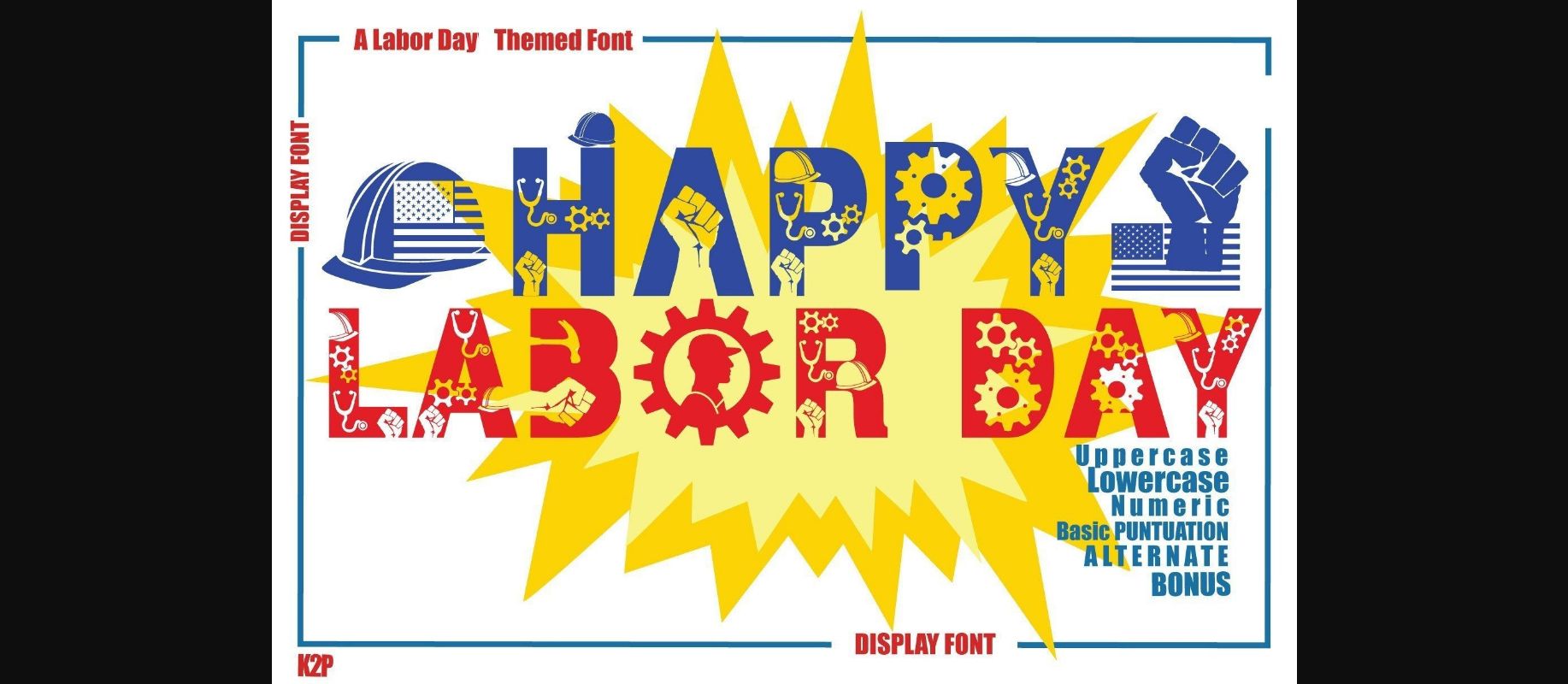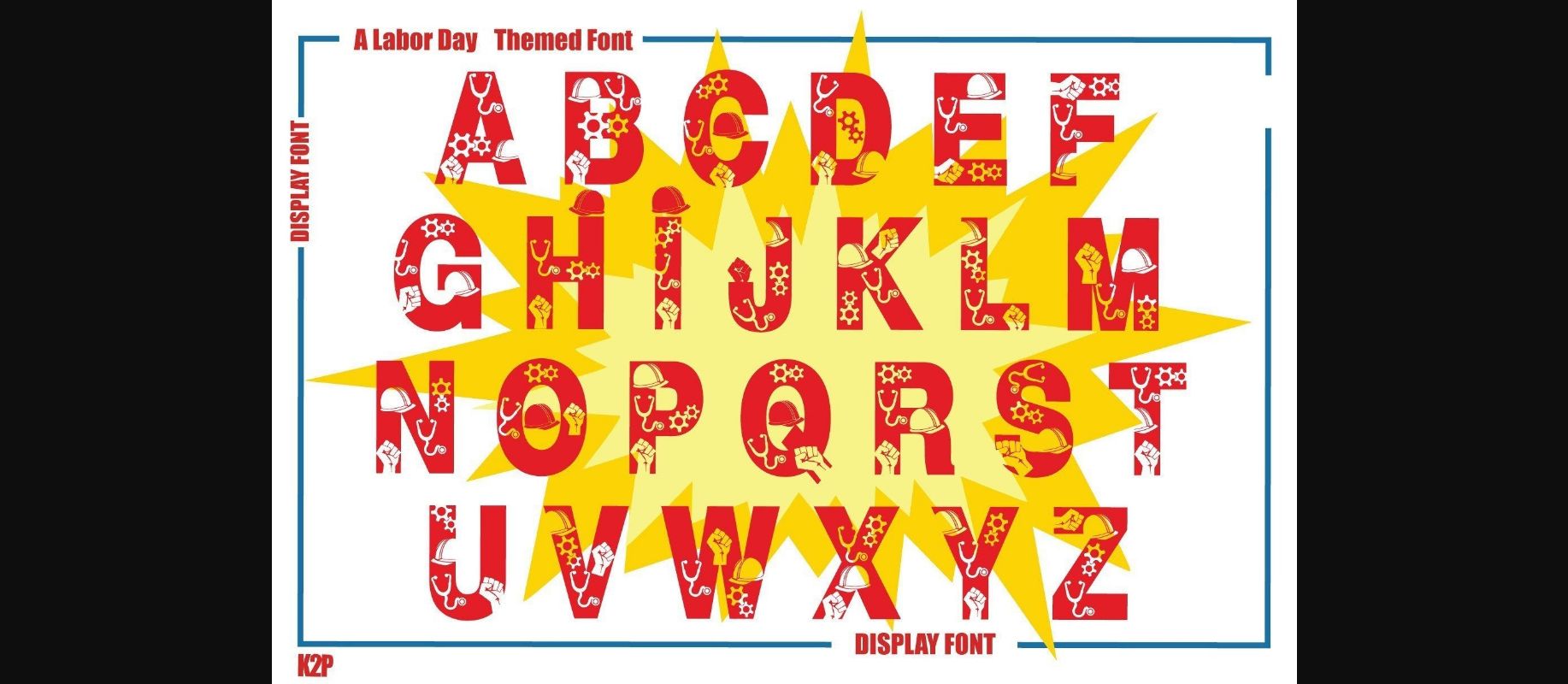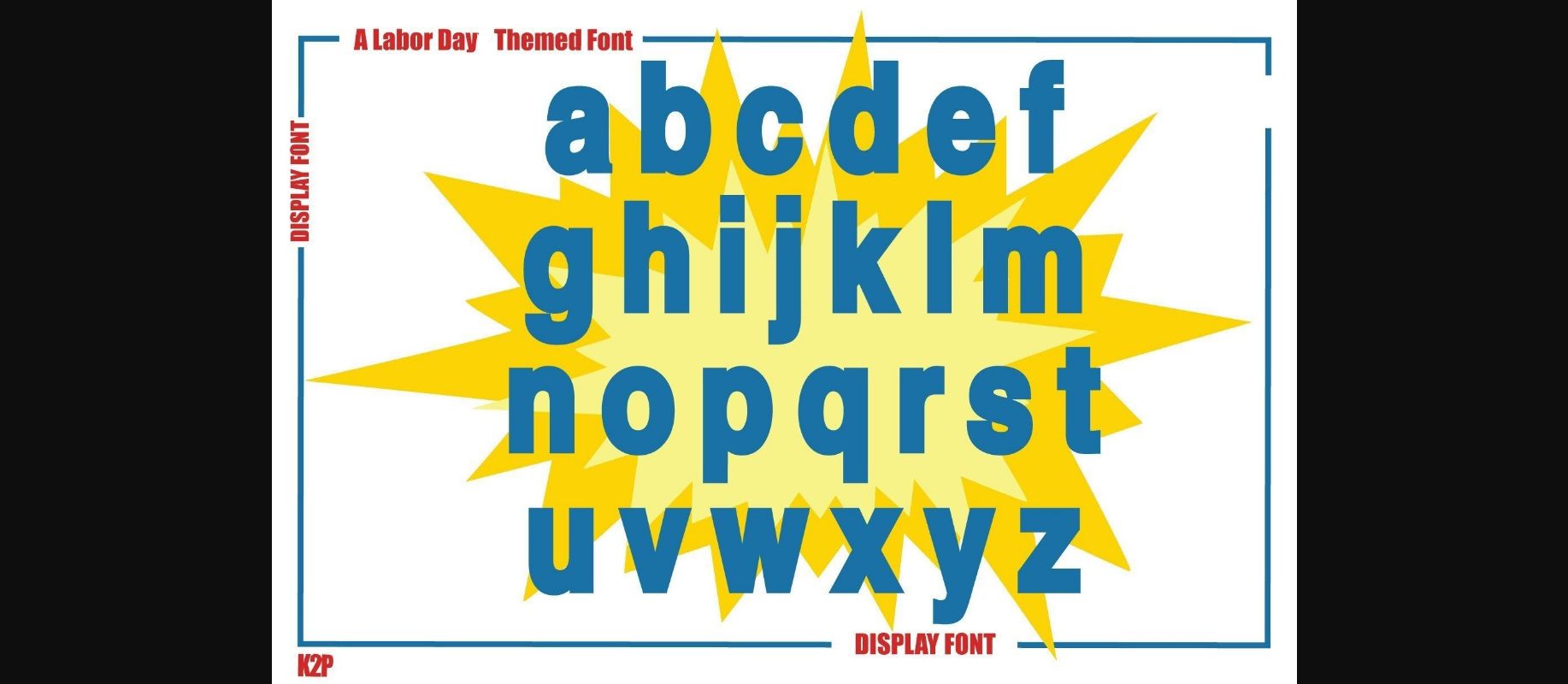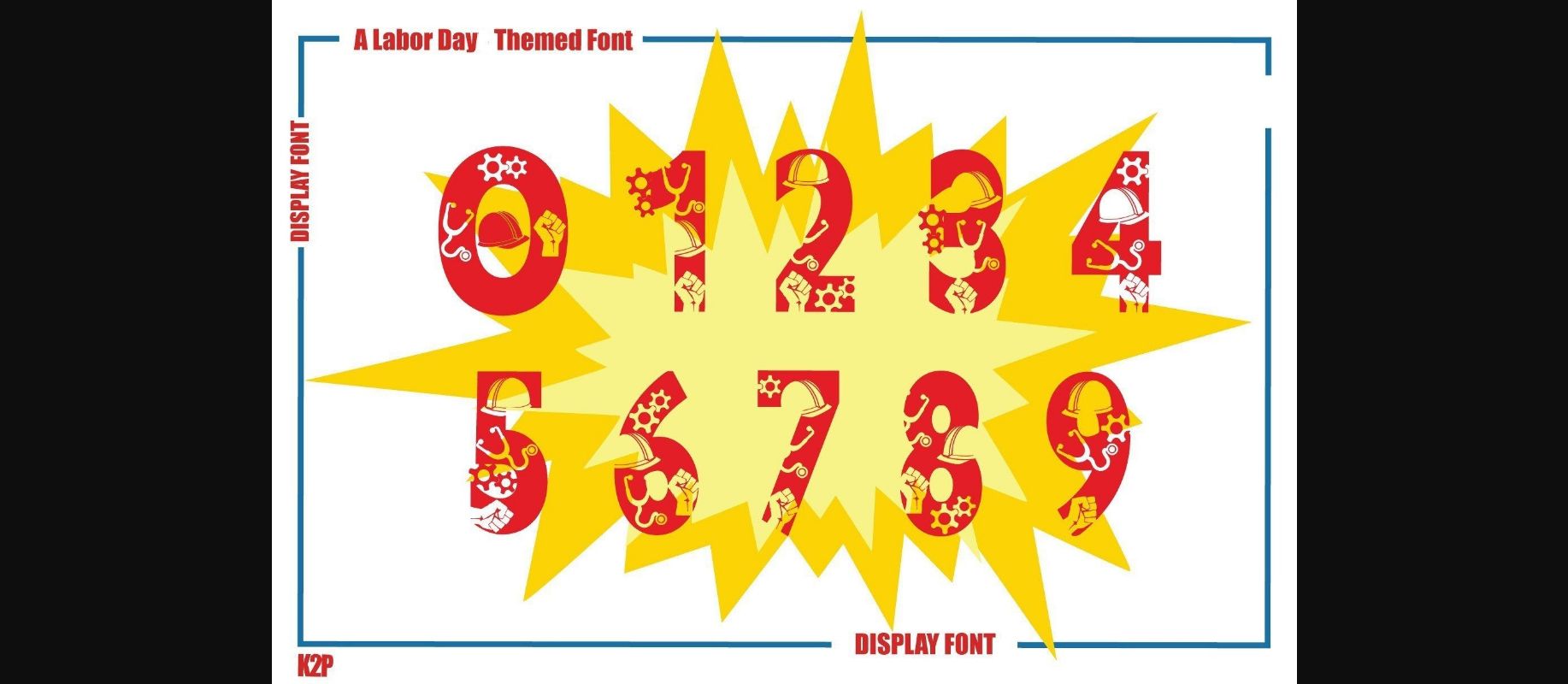
About Happy Labor Day Font
Happy Labor Day is a thick-lettered decorative font perfect for various quotes or teaching materials! Its authentic look will add a personal and realistic feel to your designs. This font is PUA encoded, which means you can access all of the glyphs and swashes with ease!